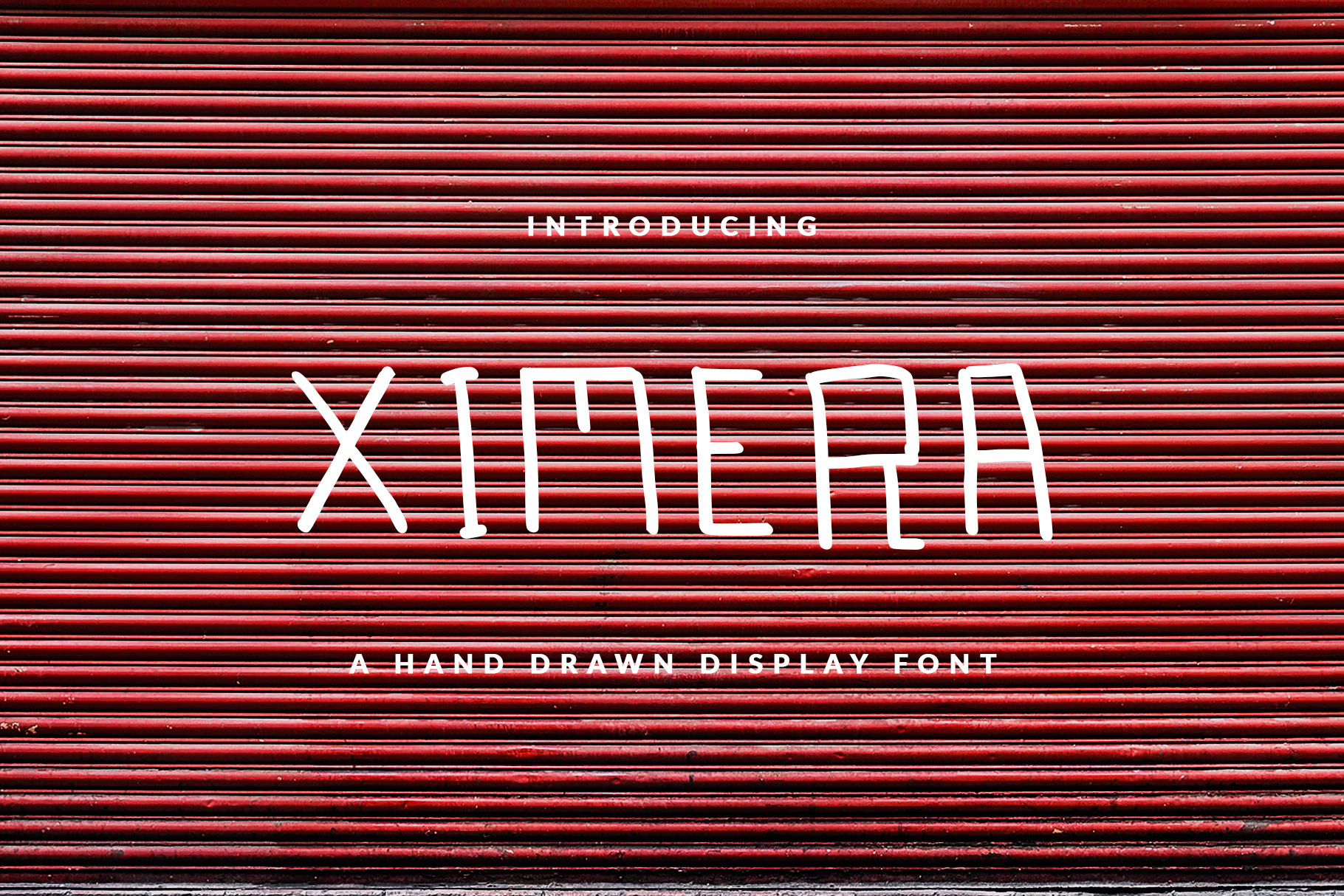
XIMERA DISPLAY FONT FOR HEADER
Sans serif hand-drawn display font called WRINKLE was designed for modern, classic, bold, unique and other style also fit for Header website, general use for header text, kids stories, books, poems and other long text